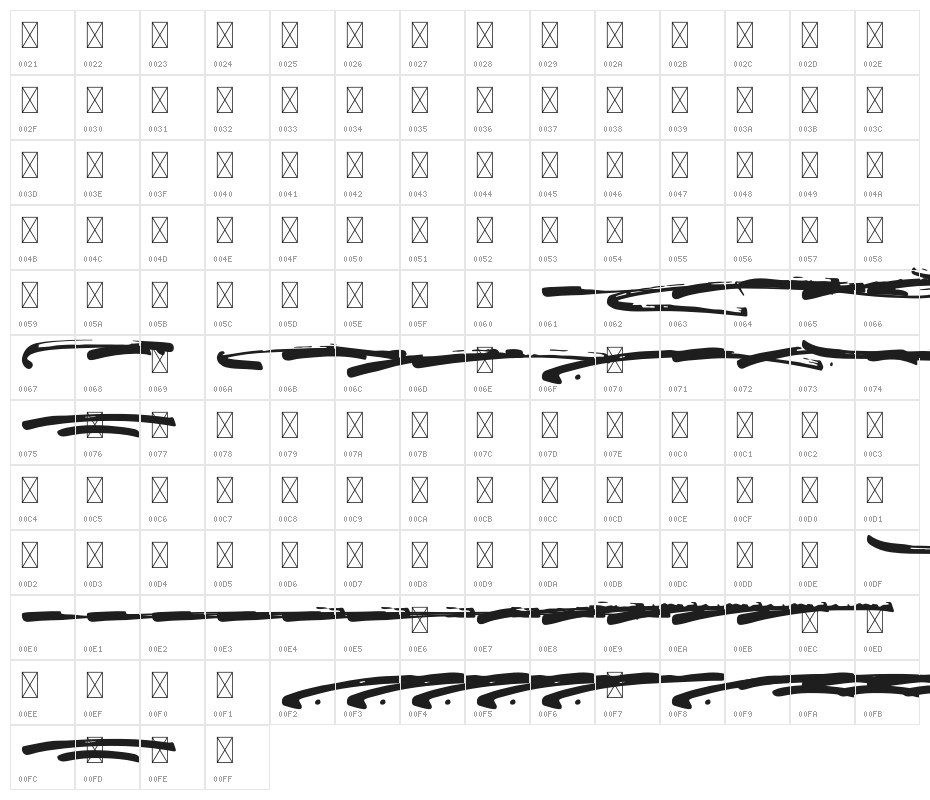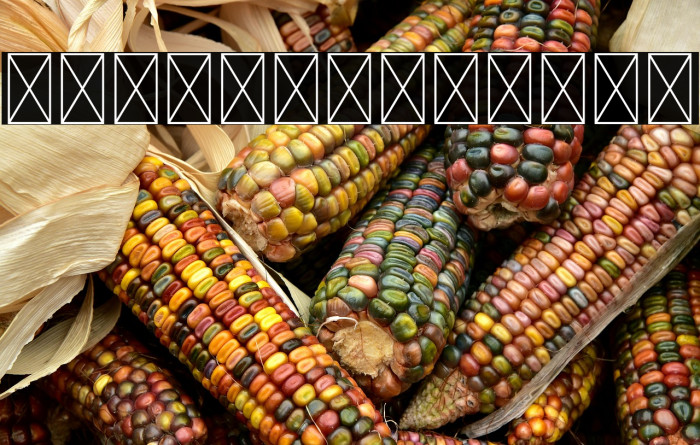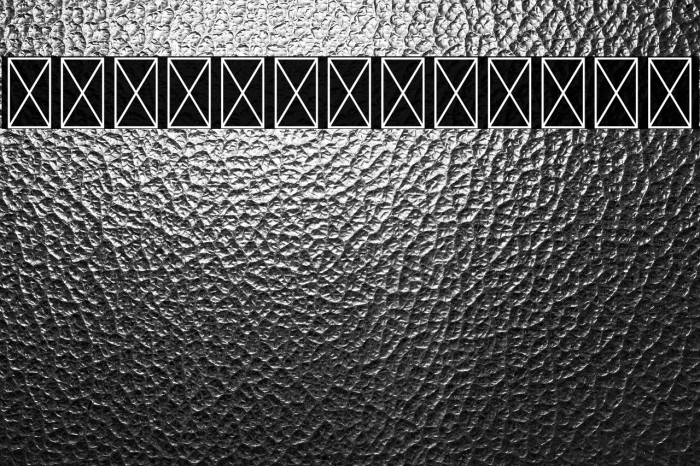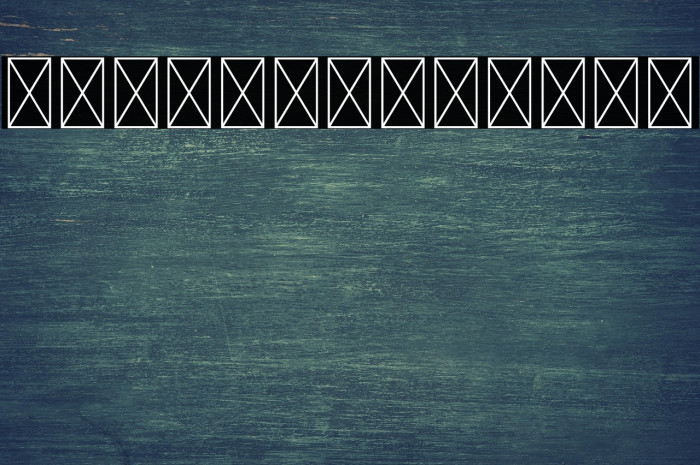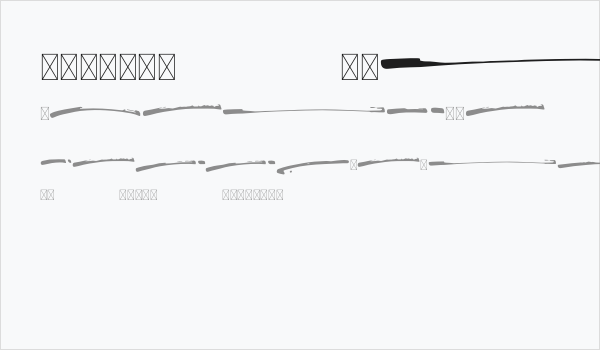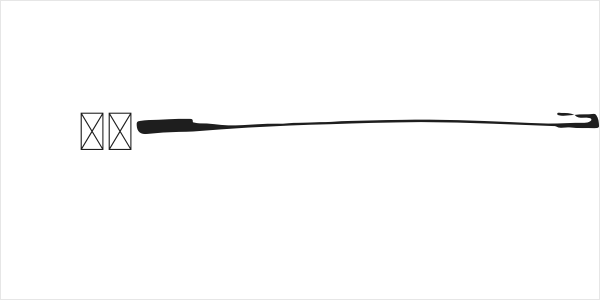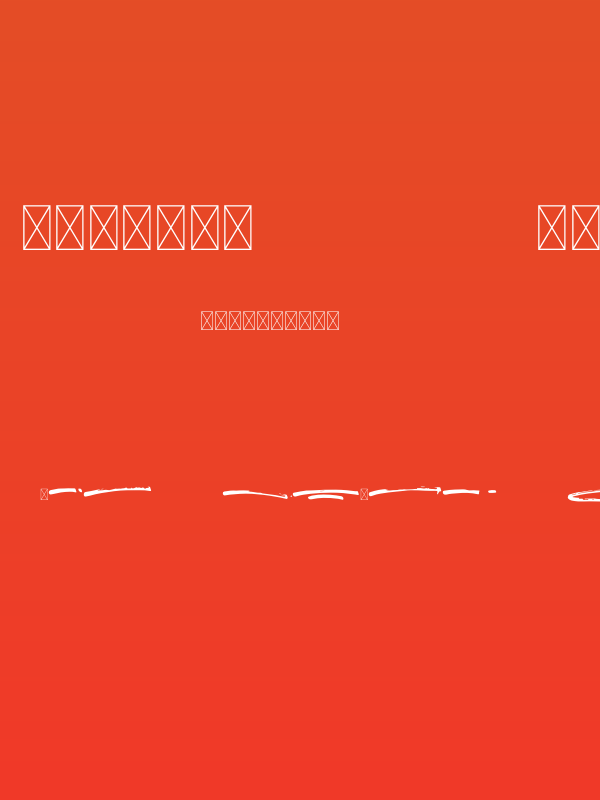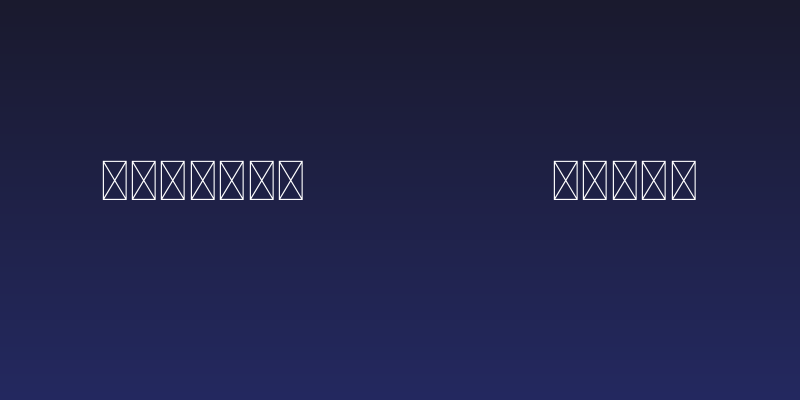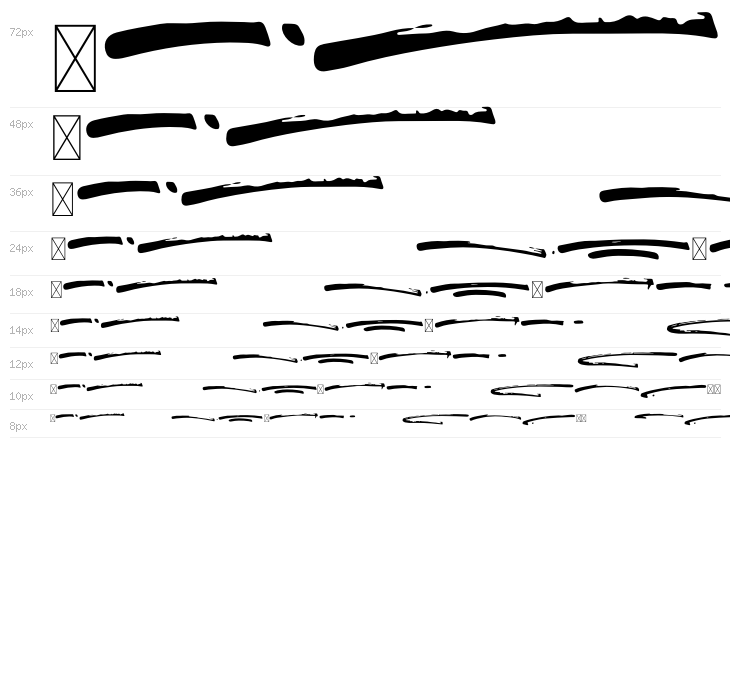
BOSTHON Swash Font
BOSTHON Swash Description
This font features a highly decorative and artistic style, characterized by intricate swashes and flourishes that extend from each character. The design is reminiscent of elegant calligraphy, with a flowing and dynamic appearance that adds a sense of movement and grace. The characters are crafted with attention to detail, showcasing a blend of thick and thin strokes that create a striking visual contrast. This font is ideal for projects that require a touch of sophistication and flair, making it suitable for invitations, branding, and other creative applications.